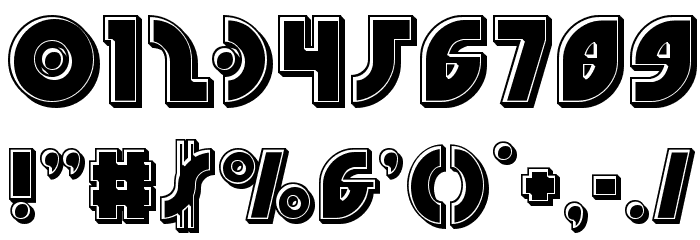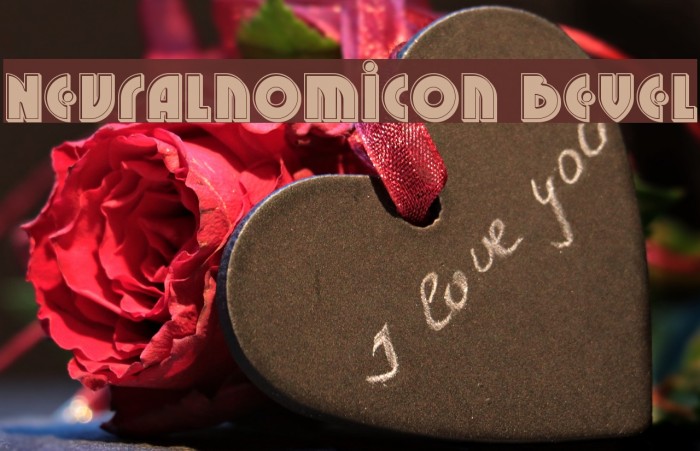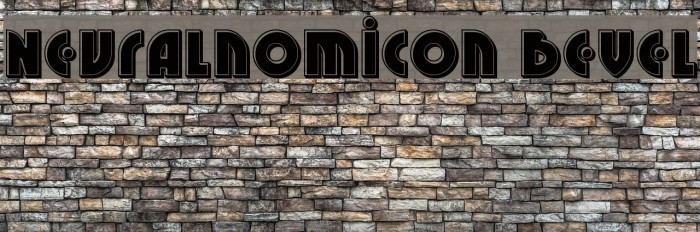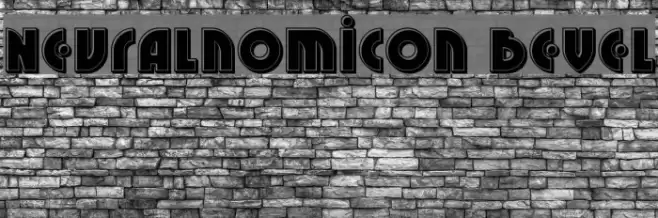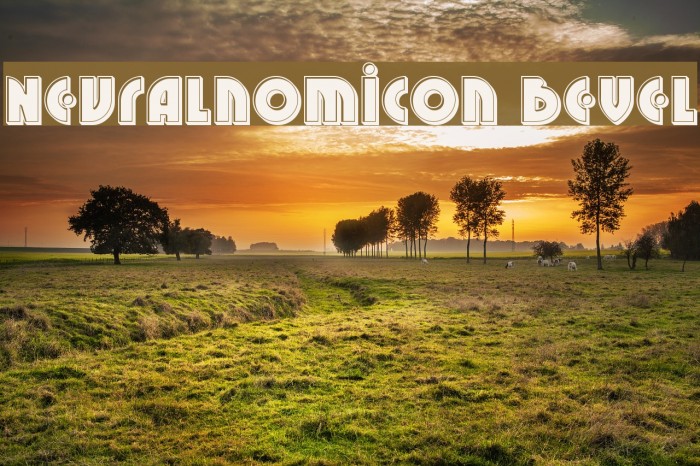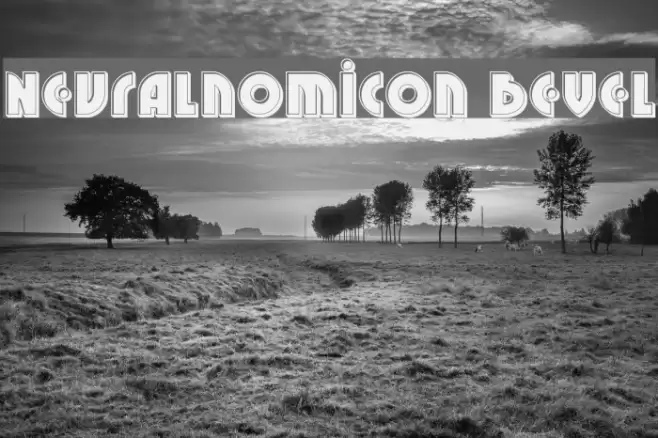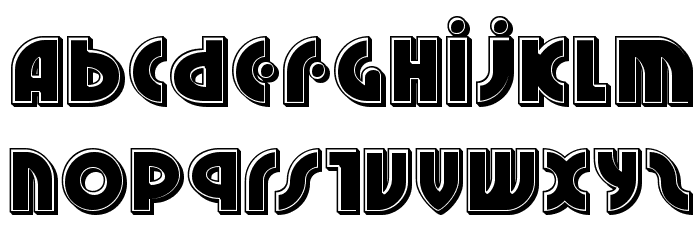
Neuralnomicon Bevel Font
Neuralnomicon Bevel Description
This font features a bold and striking design with a distinct beveled effect that gives each character a three-dimensional appearance. The geometric shapes and thick lines create a sense of depth and solidity, making it highly suitable for attention-grabbing headlines and titles. The uppercase and lowercase letters maintain a consistent style, with rounded edges and a futuristic aesthetic. The numbers and special characters are equally bold, ensuring uniformity across all text elements. The font's unique style is both modern and decorative, making it ideal for projects that require a strong visual impact.
A bold, beveled font with a modern, geometric style from Uncategorized fonts.
- Proposed Projects: Ideal for posters, logos, video game titles, and any design requiring a bold, futuristic look.
- Overall Style: Modern, Decorative